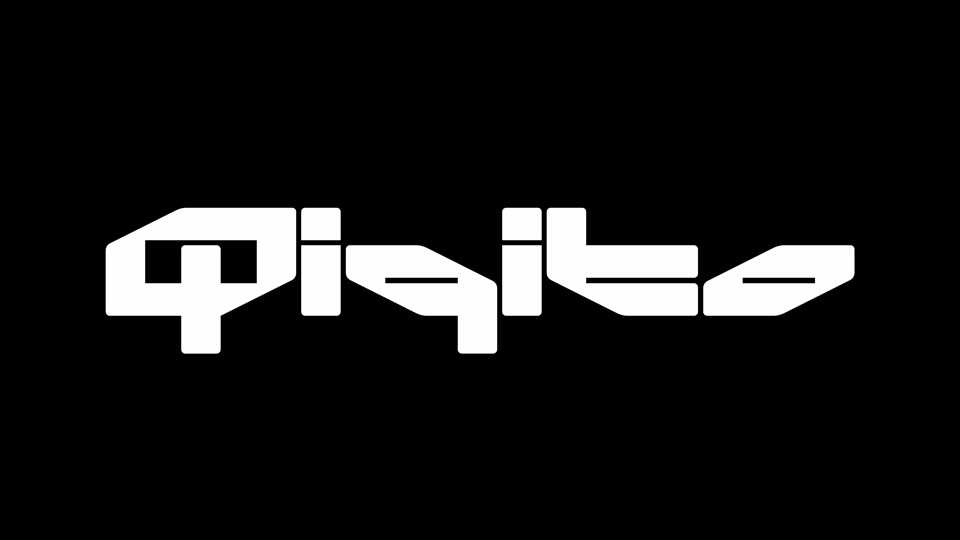
Download Qiqito font, a future inspired display typeface dedicated to Quique Peydro with basic Latin and Greek support .Qiqito includes dozens of alternate glyphs and ligature
Designer: Iñigo Uriarte